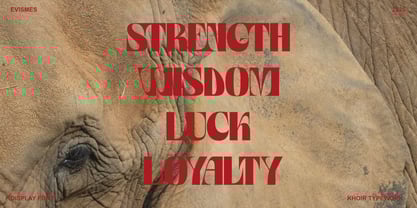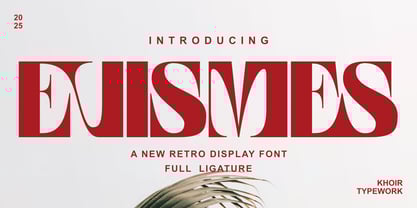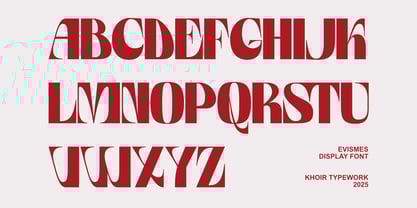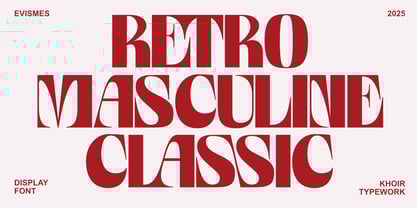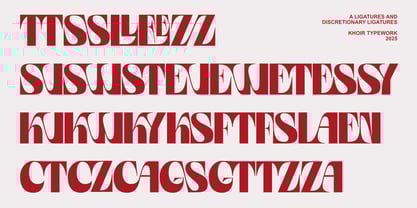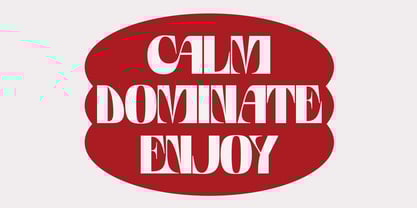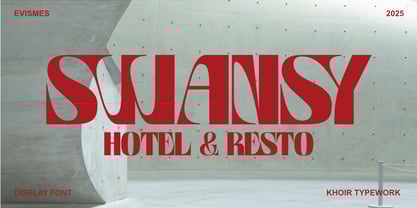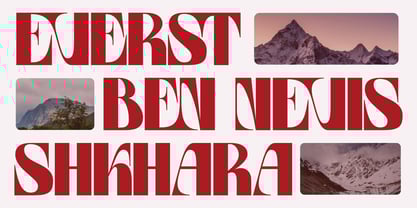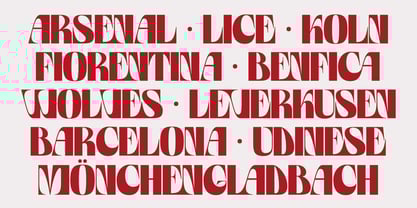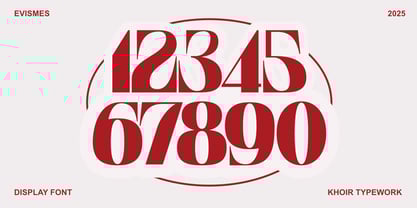
Evismes
by Khoir
The Evismes Font Family was designed by Muhammad Romzul Khoir and published by Khoir. Evismes contains 1 styles. More about this family
Featuring a masculine shape with a retro touch that makes it look charming, plus the many connecting letter ligatures make it look harmonious with each other. Created with a feeling of anxiety, this font has a soft touch on every curve and corner of the letter, so that anxiety becomes calm and normal again. Evismes Uppercase 75+ Language Ligature Font So what are you waiting for? immediately purchase this font, feel free to comment, or send me my PM or email at Thank you for seeing